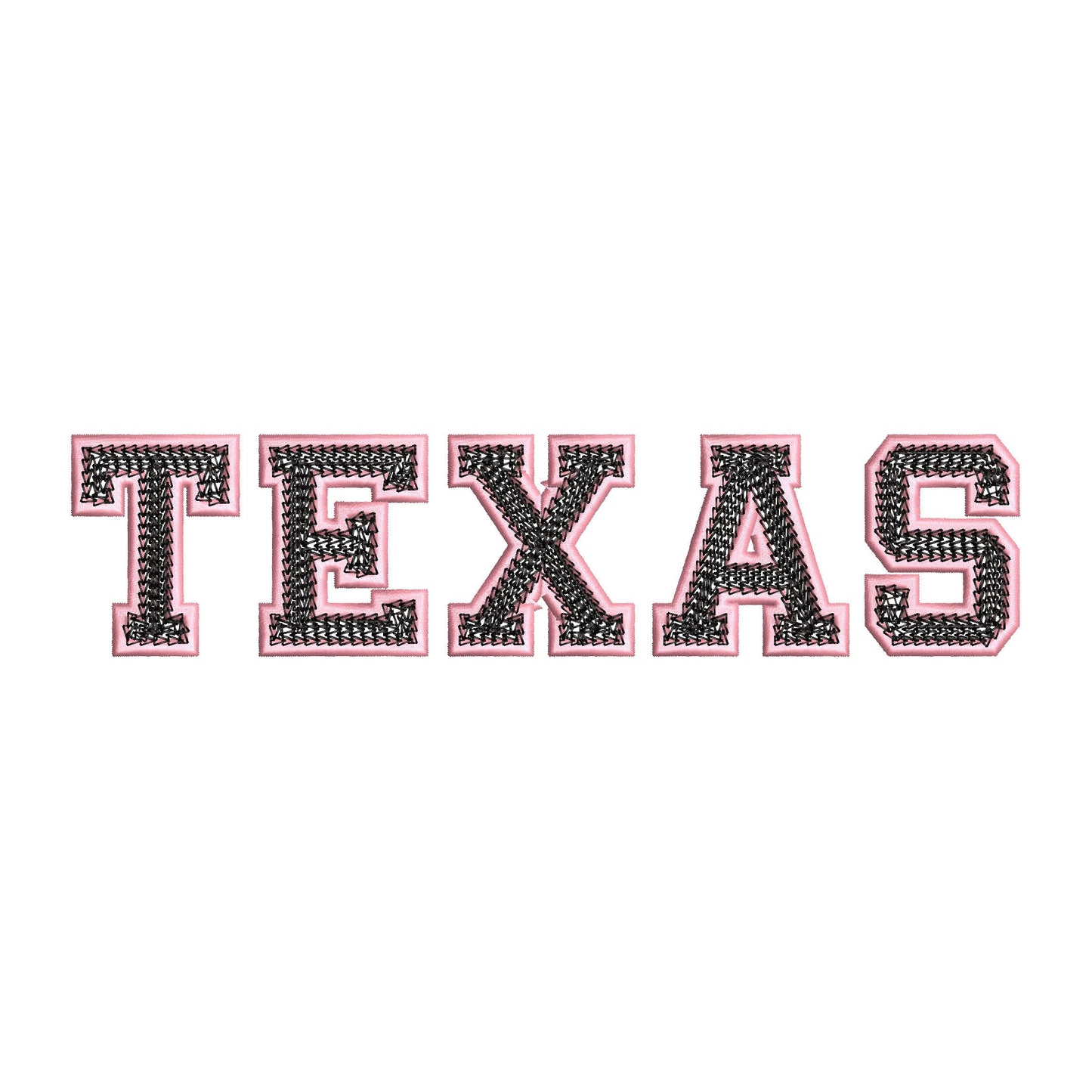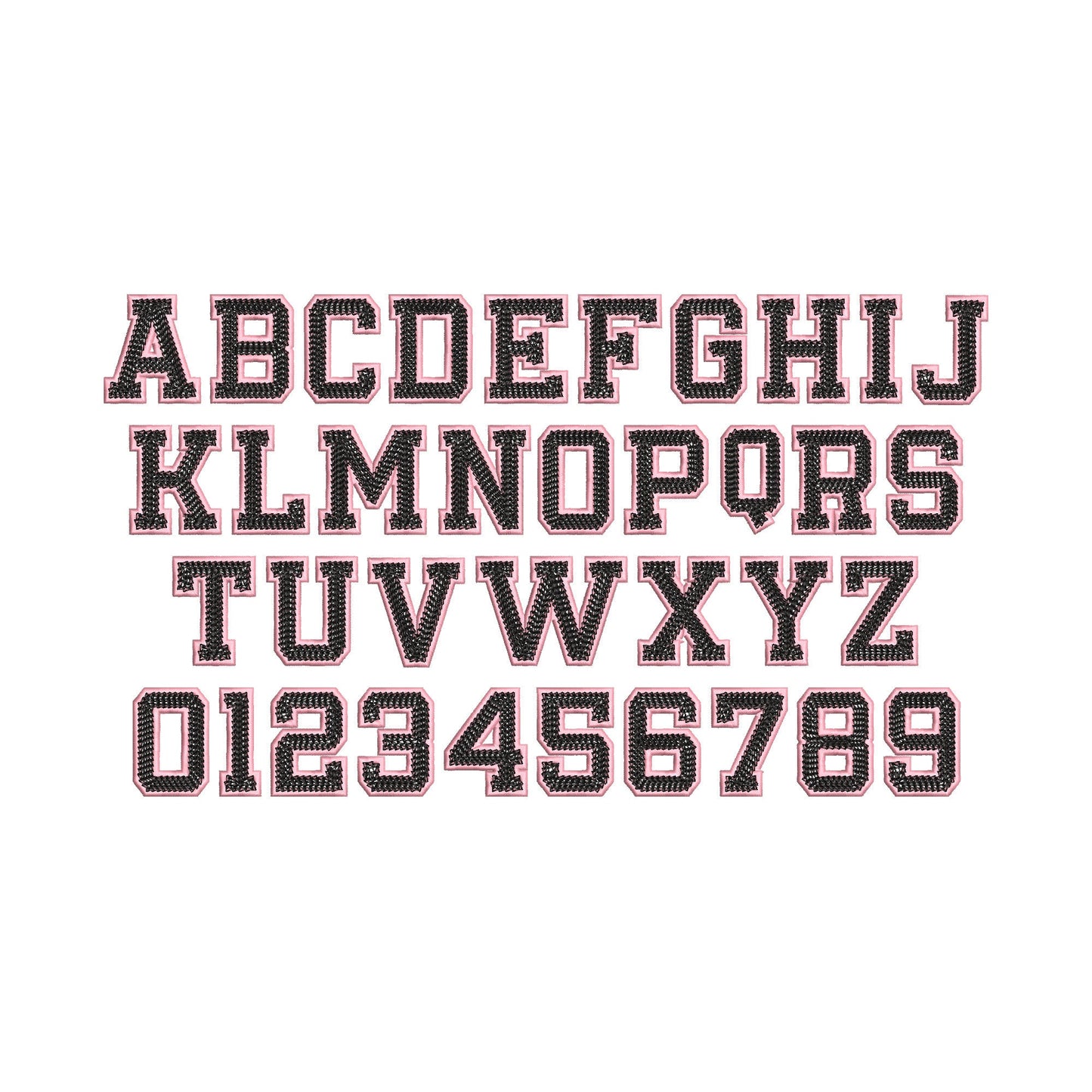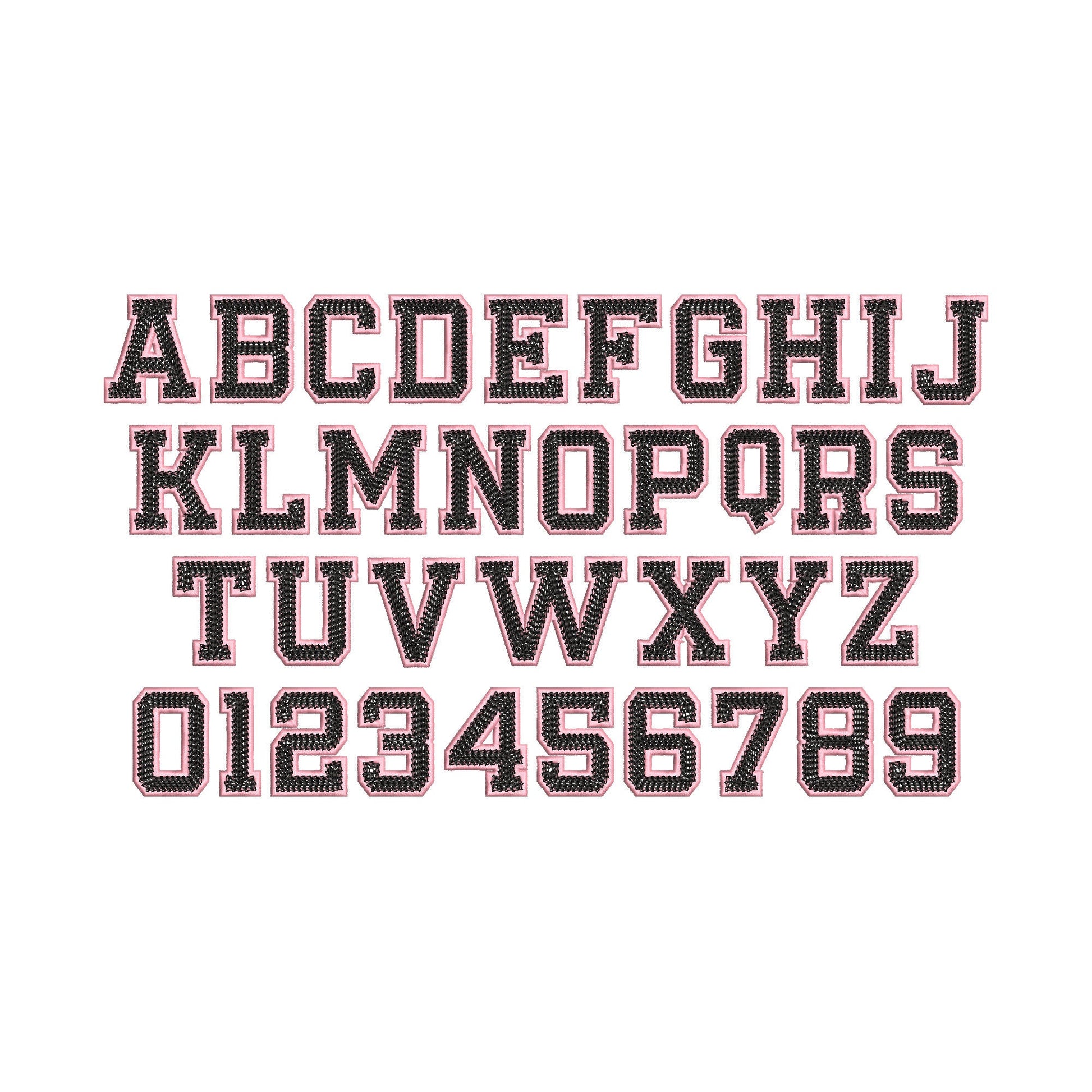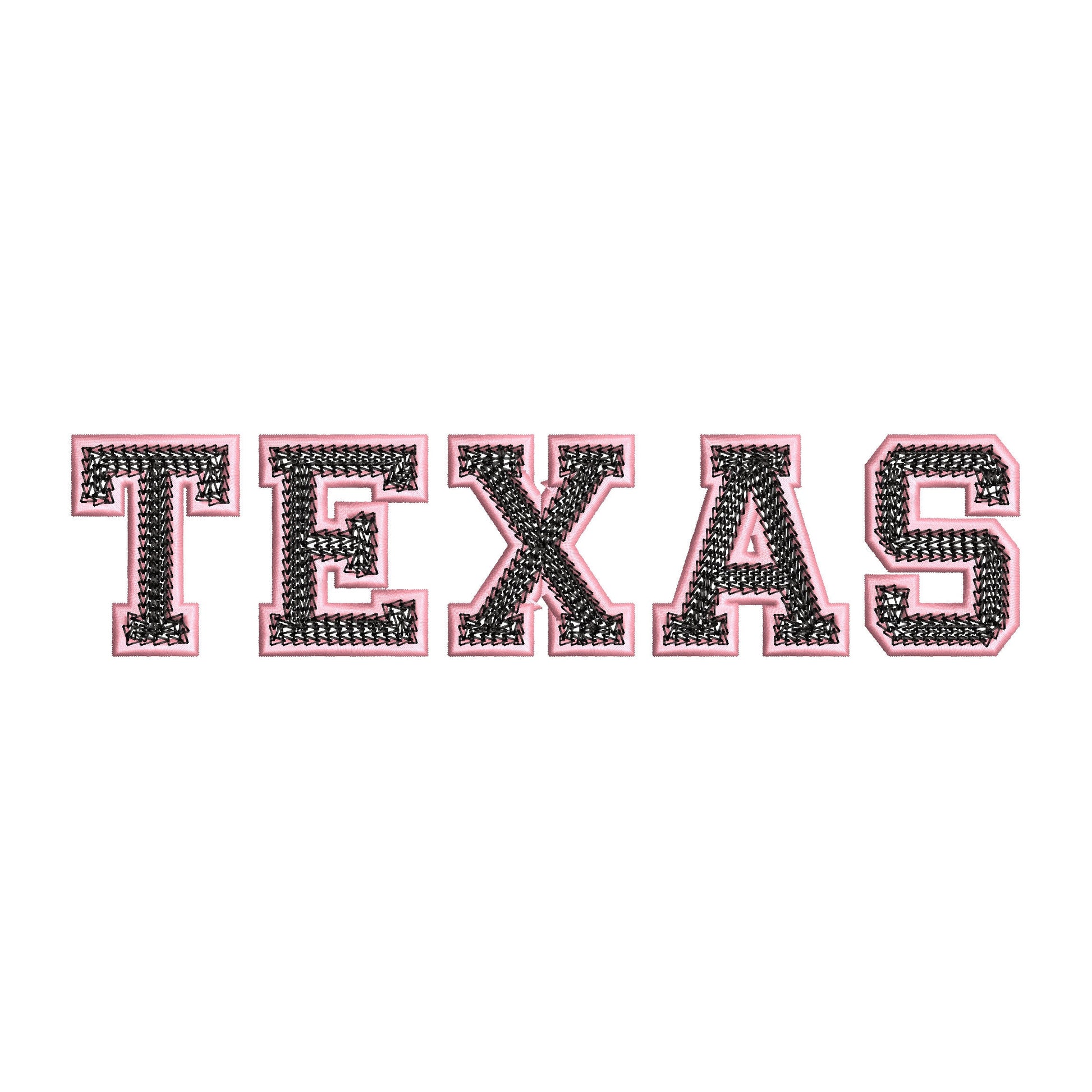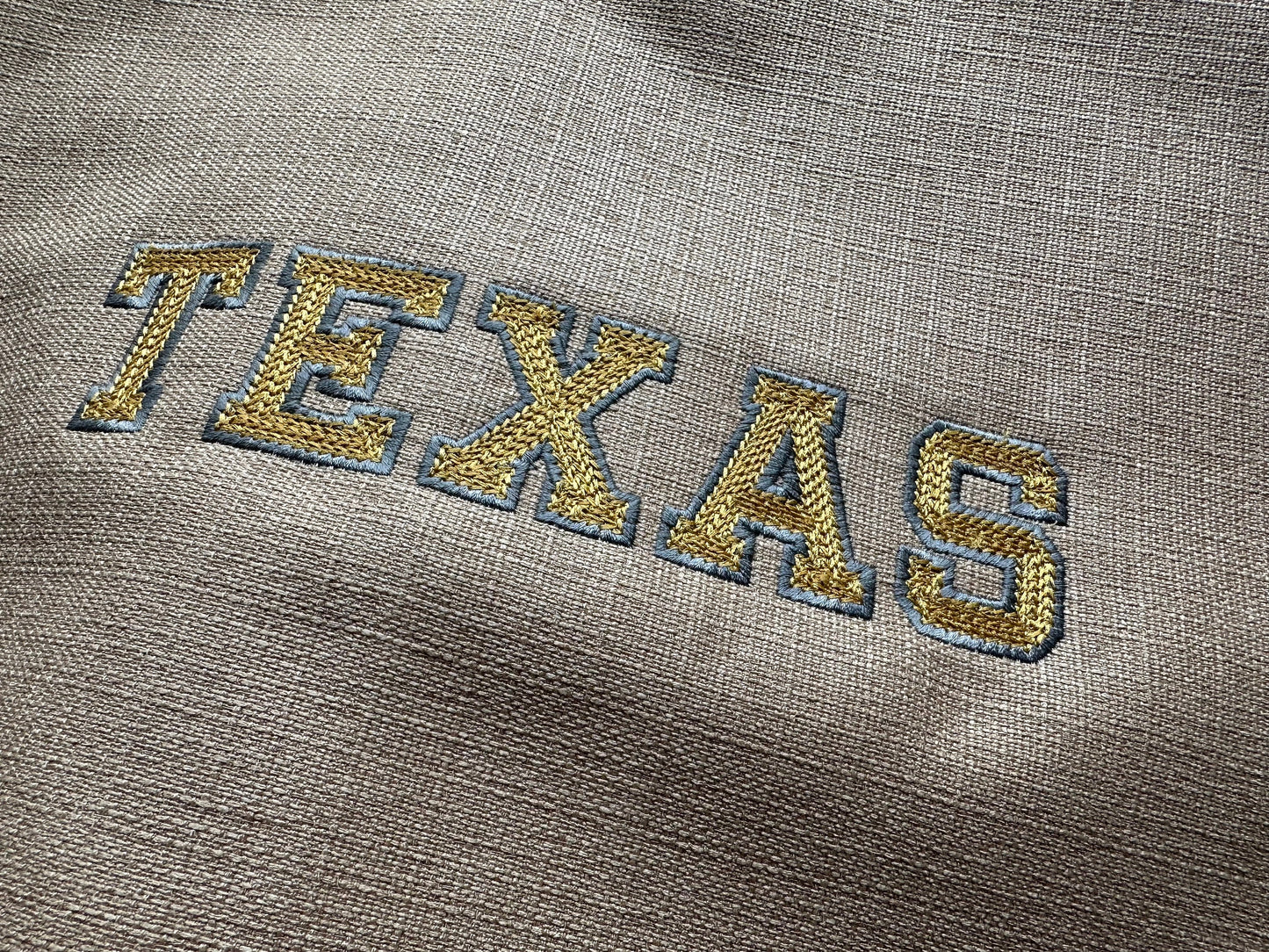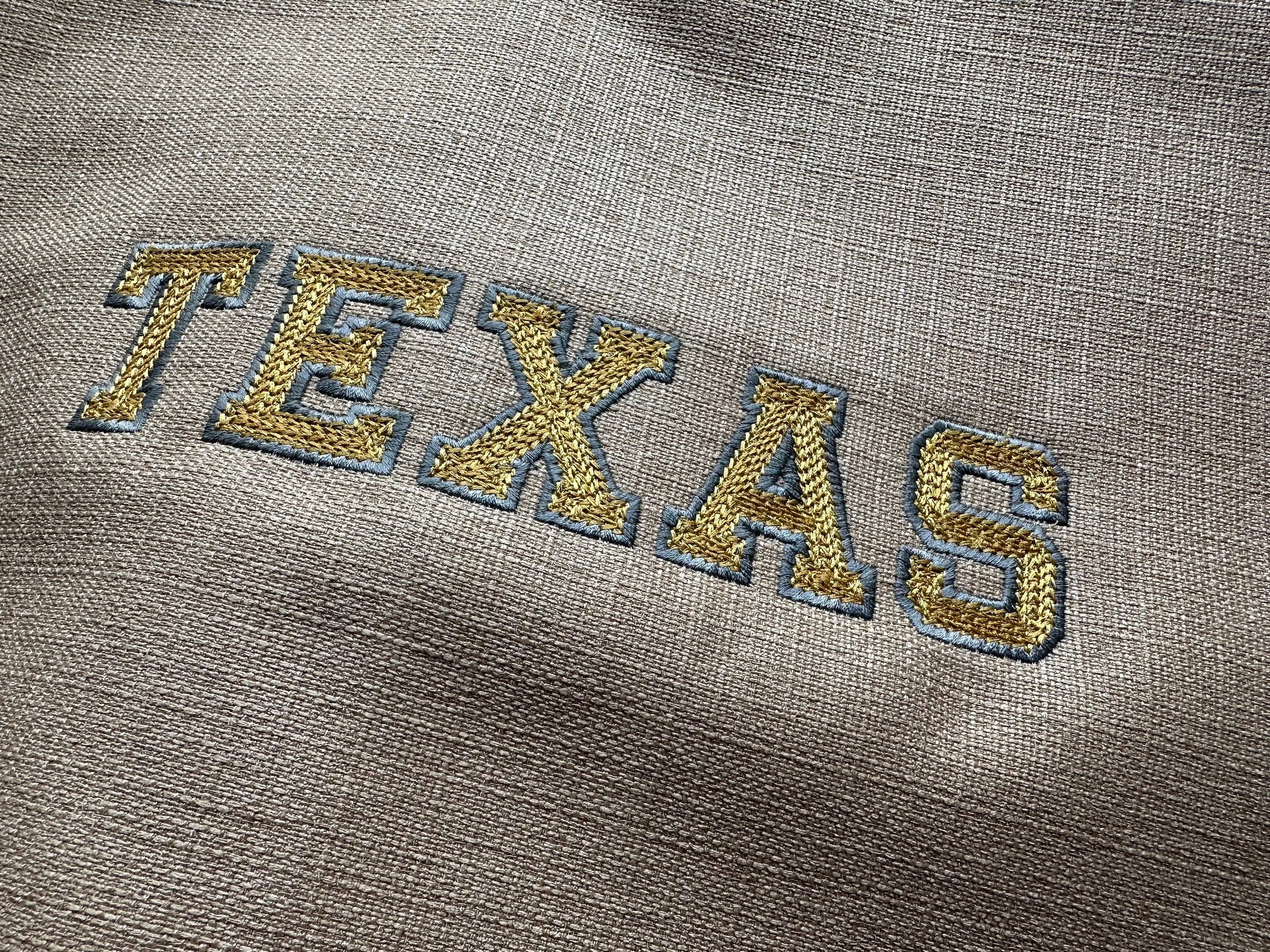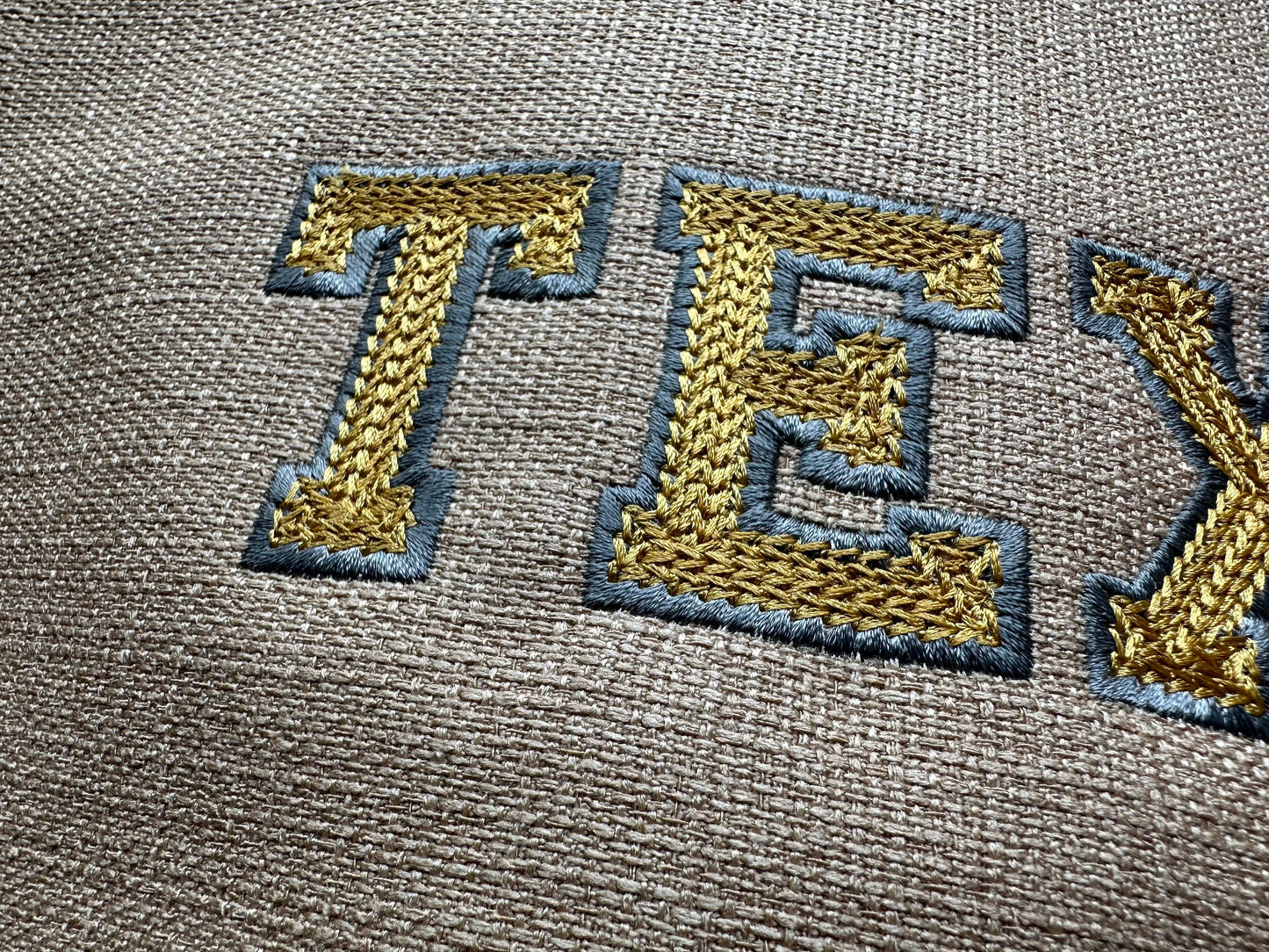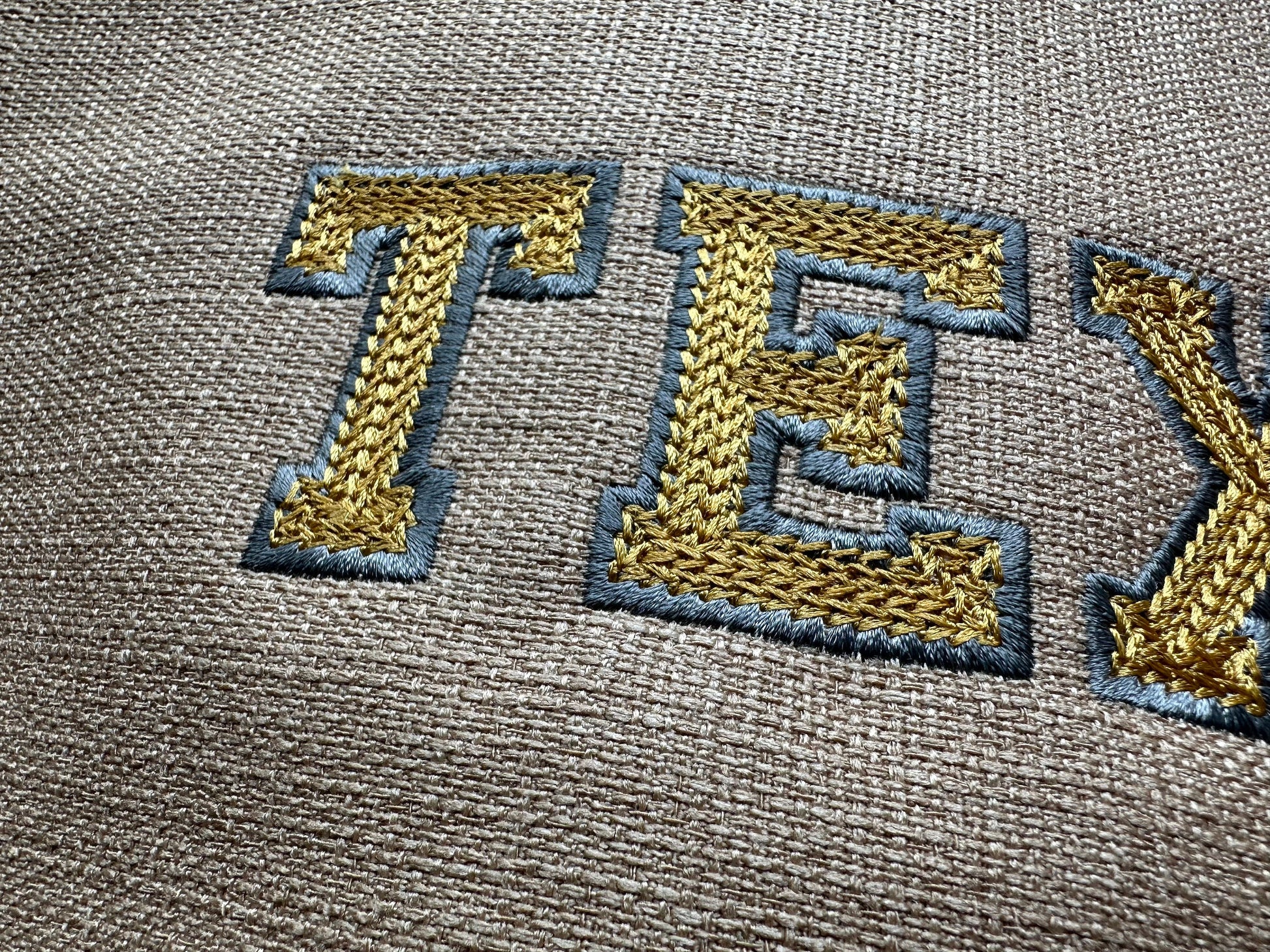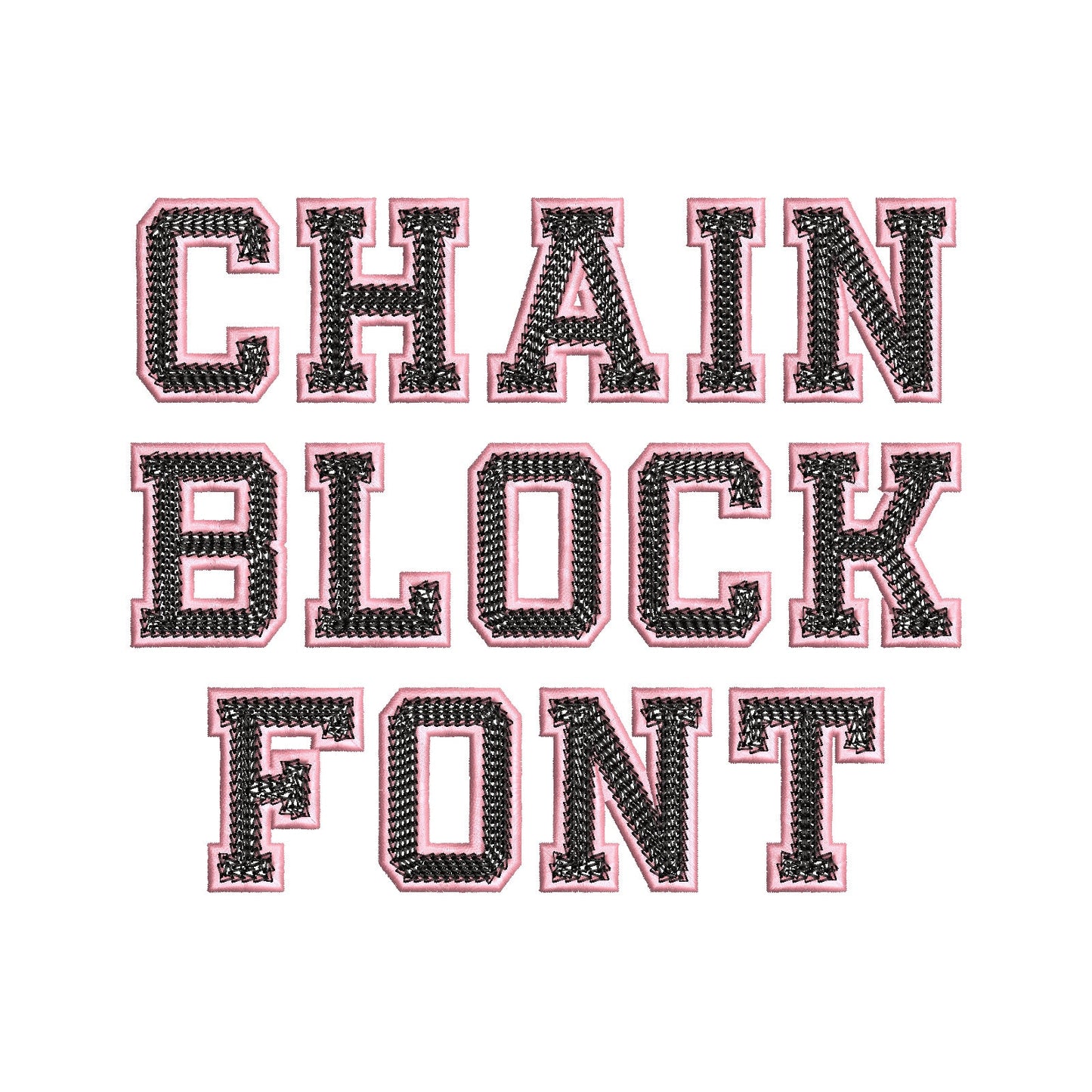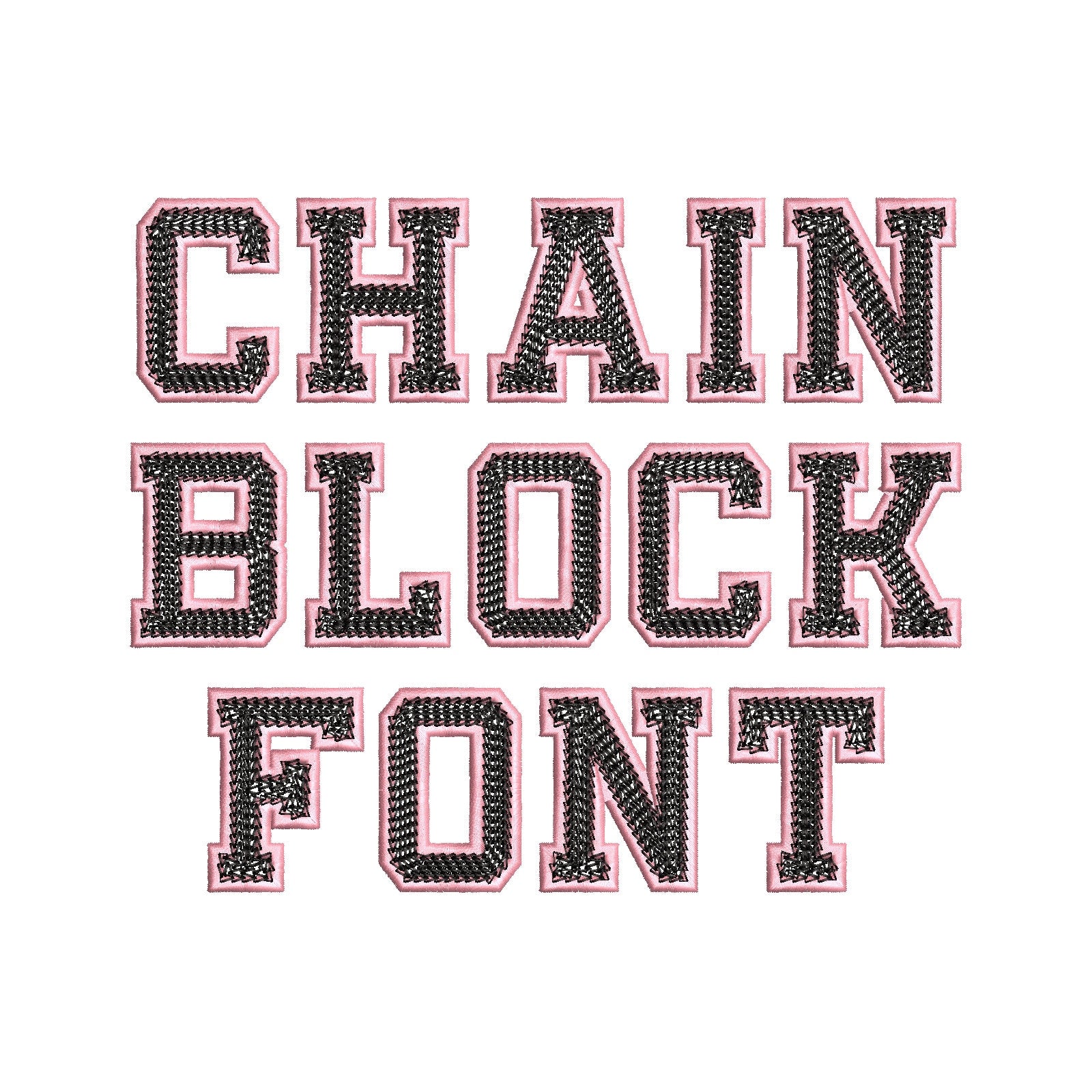
Or click to open the linkA mini block applique font with a chain stitch and satin outline, sporty for team names and numbers on shirts and bags.
Applique letters, uppercase A to Z and numbers 0 to 9, in three sizes: 1.7, 2 and 2.5 inches.